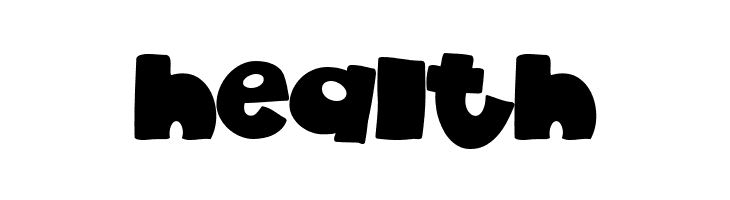
Art Book Font
Font by Jonathan S. Harris
A bold, hand-drawn font with a playful, scribbled texture.
ART HISTORY BOOK Font
Font by Regulerstudio
A playful, hand-drawn font with bold, rounded characters and a textured, artistic style.
Art Paper Font
Font by wep
A bold, angular font with a geometric, paper-folded style.
ARTHO Personal Use Font
Font by twinletter
A playful, bold font with a hand-drawn, whimsical style.
arthury Font
Font by HandletterYean
A playful, rounded font with a casual, hand-drawn style.
Arush Shiny Font
Font by wep
A bold, brush-style font with a dynamic and energetic appearance.
Arush Shiny Font
Font by wep
A bold, dynamic handwritten font with rounded edges and a playful style.
Asdonuts Font
Font by GFR Creative
A bold, rounded font with a playful and whimsical style.
Astronomy Space Font
Font by Qaratype2
A whimsical handwritten font with thin, delicate strokes and playful character.
Athera Charlote Font
Font by Zarma Type Foundry
A bold, playful font with rounded edges and a whimsical, handwritten style.
AtheraCharlote Font
Font by Zarma Type Foundry
A bold, playful script font with smooth curves and thick strokes.
Attack Of Monster Font
Font by Tokokoo Studio
A bold, playful font with exaggerated, uneven strokes and a whimsical appearance.
Audrey Kids Font
Font by StringLabs
A playful, bold font with rounded, bubbly characters and a hand-drawn feel.
Augmented Funk Regular Font
Font by PoppyNull
A bold, playful font with exaggerated, irregular shapes and a funky style.
Austie Bost Chunkilicious Font
A bold, playful font with chunky, rounded characters for a whimsical look.
Austie Bost Chunkilicious Bounce Font
A bold, playful font with a chunky, bouncy style.
Austie Bost Kitten Klub Font
A playful, cat-themed decorative font with whimsical embellishments.
Austie Bost Toy Chest Font
A playful, handwritten font with a whimsical and childlike charm.
Avengeance Heroic Avenger Bold Italic Font